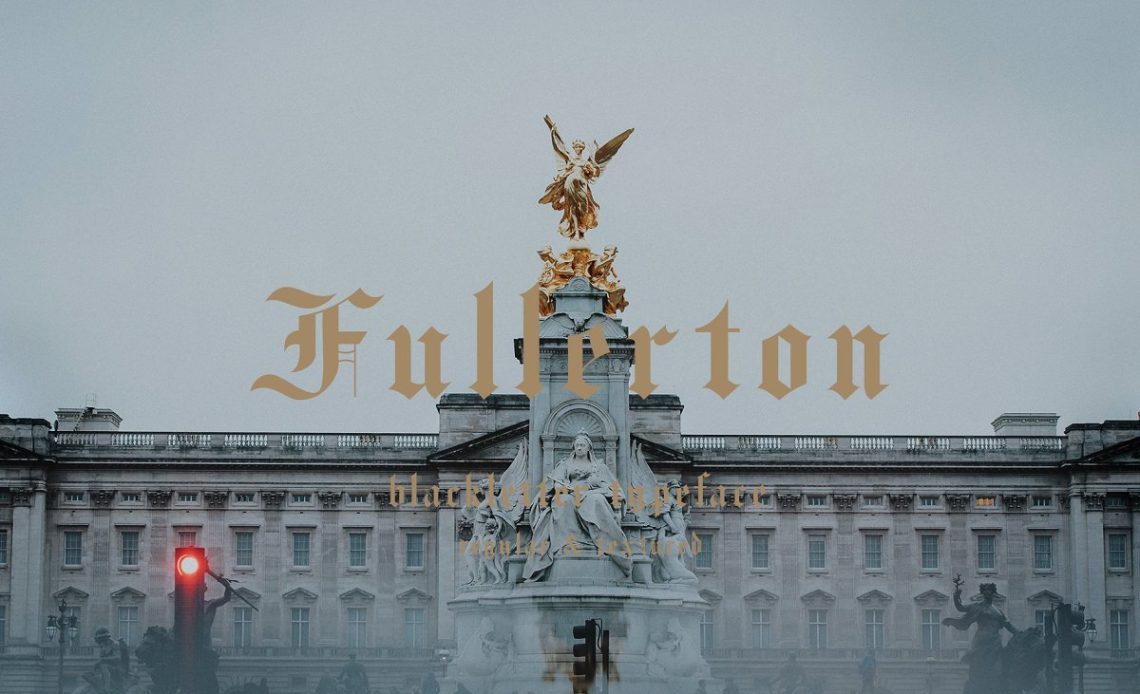
Introducing the Fullerton typeface font, a blackletter font family created by Eko Setiawan that is making waves in the font world. This font is not just any ordinary font, it's the Best Font For Old People. Designed with a unique touch, this font is perfect for creating logos, posters, magazines, books, and other design needs. With Fullerton typeface, you can easily add a touch of vintage charm to any project.
Fullerton typeface font is a must-have for those who want to give their designs a unique look and feel. This font stands out from the rest with its intricate details and timeless appeal. Inspired by the subtext of a book, this font is created with passion and dedication. Its creator, Eko Setiawan, has poured his heart and soul into making this font the best it can be.
But what makes Fullerton typeface stand out from the crowd? Let's take a look at its features. This font comes with multi-language support, making it easy for you to use it in any part of the world. It also has web font support (WOFF), so you can use it for your website without any hassle. Fullerton typeface comes with two font styles - Regular and Textured, allowing you to choose the one that fits your design needs.